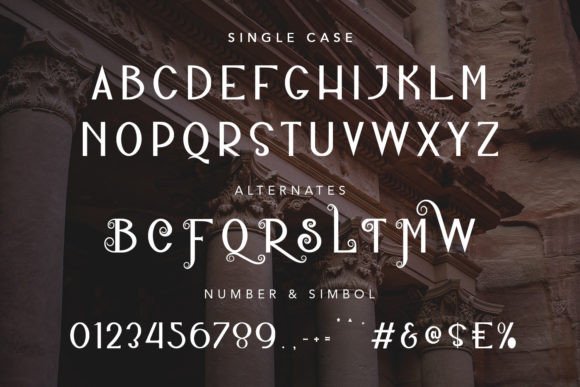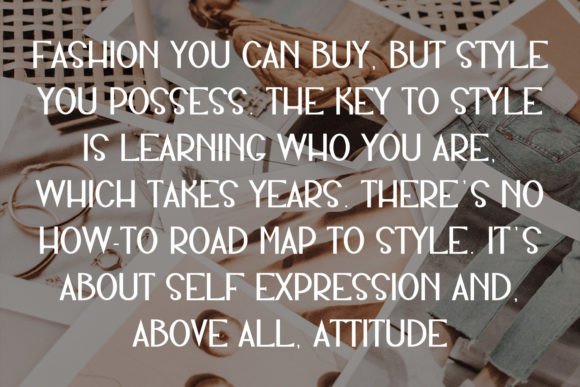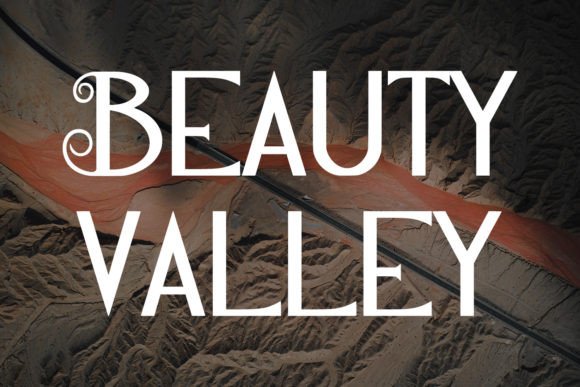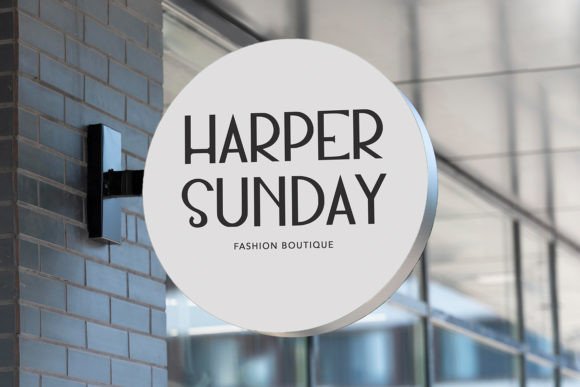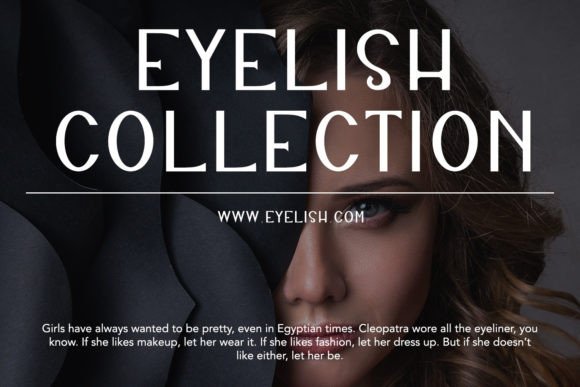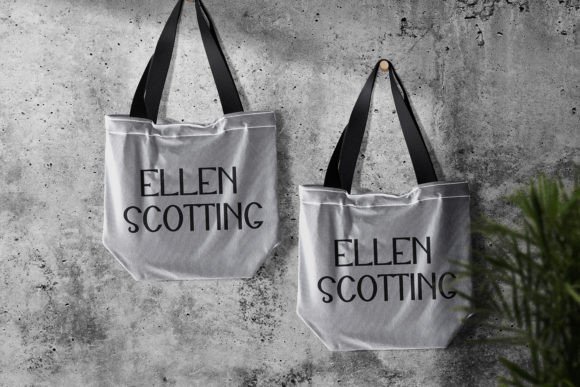
Introduction to Qirllia Font
Qirllia is a modern Decorative Display font.
Bold strokes, fun character with a bit of ligature and alternates This font is good for logo design, Social media, Movie Titles, Books Titles, short text even long text letters, and good for your secondary text font with script or serif.
Key Features of Qirllia Font